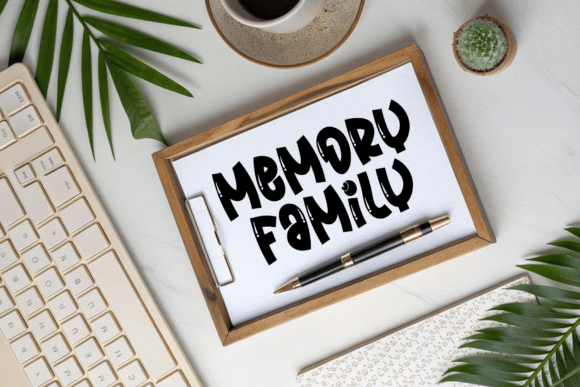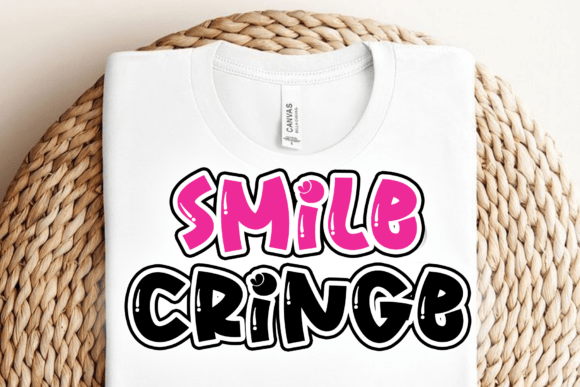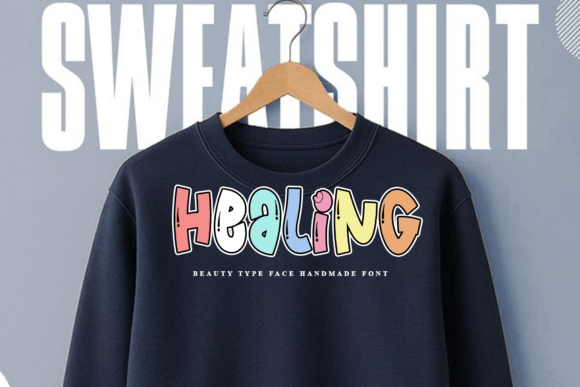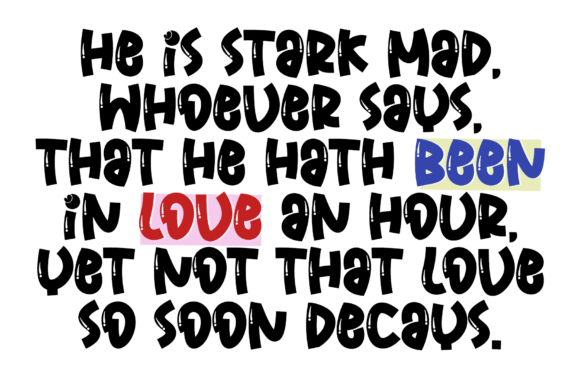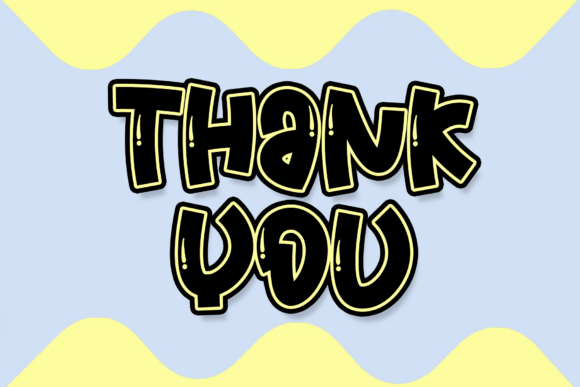
Introduction to Mely Girls Font
Mely Girls: The Bold Graffiti-Pop Font Make a high-impact statement with Mely Girls , a thick, bubbly display font that sits at the intersection of street graffiti and pop art.
Featuring ultra-bold strokes, high-contrast highlights, and โglossyโ reflections, this font is designed to jump off the page It provides a professional, โvinyl-stickerโ aesthetic that is perfect for youth-oriented branding and urban apparel.
Key Features of Mely Girls Font